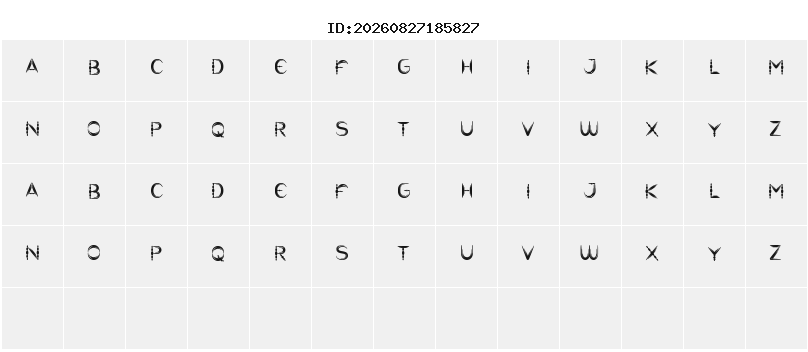
• Font Name: the ticket
• Full Font Name: the ticket
About the ticket.ttf
the ticket.ttf is a modern, elegant sans-serif font designed for ultimate readability and visual harmony. Perfect for branding, headlines, web design, and print materials.